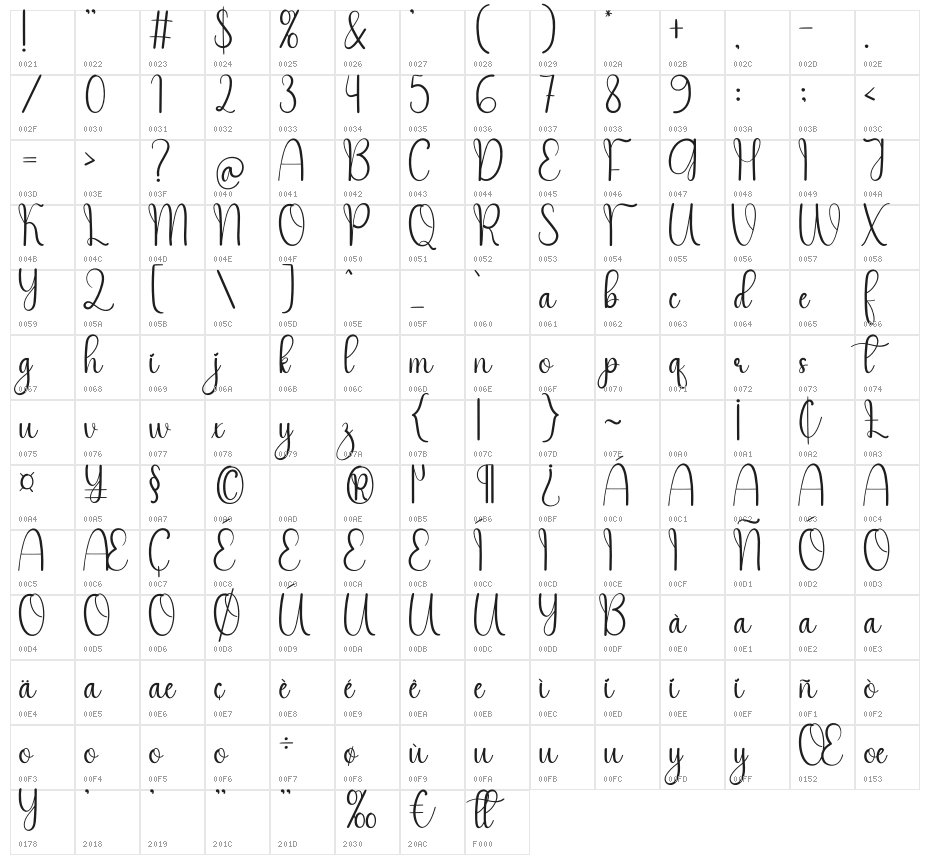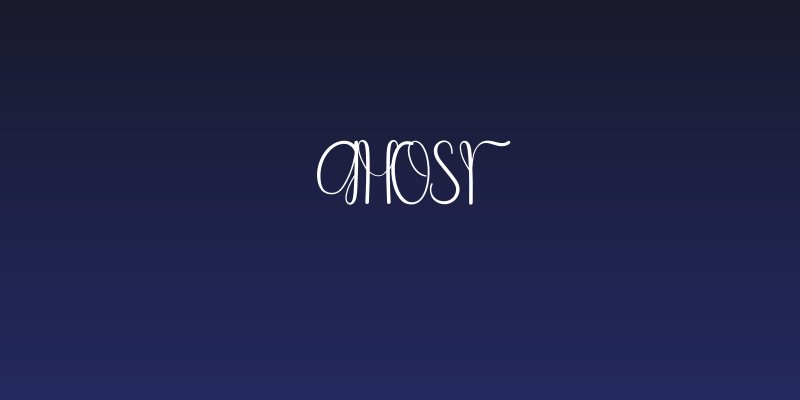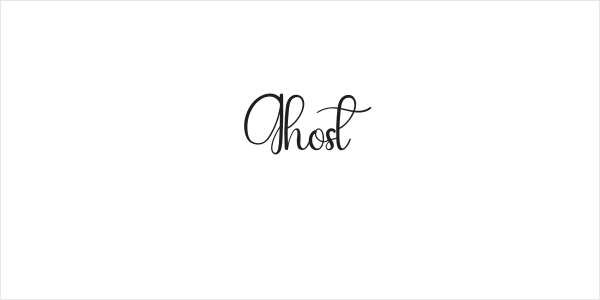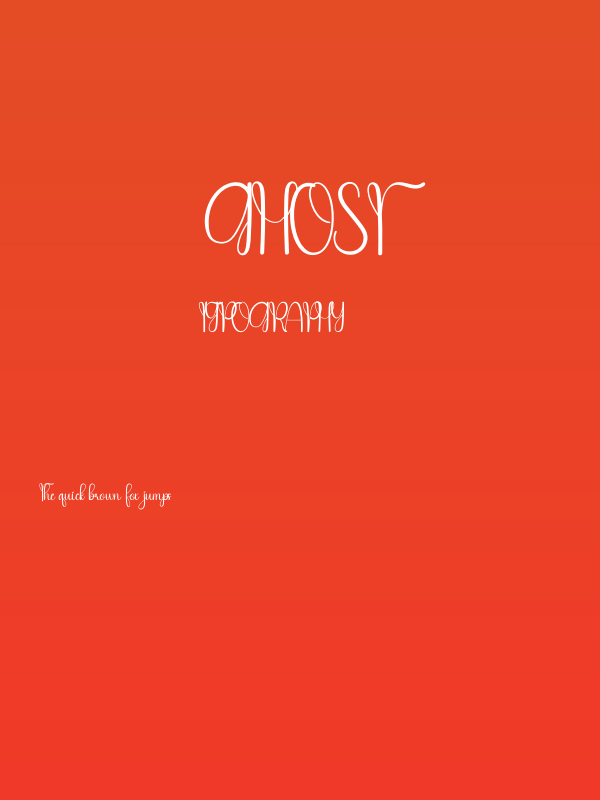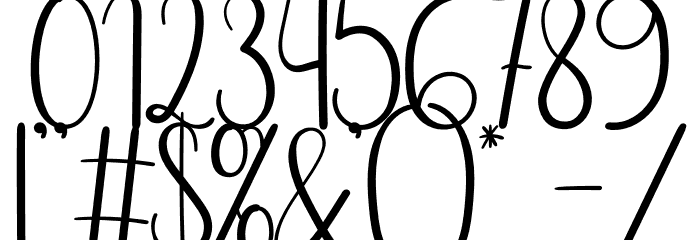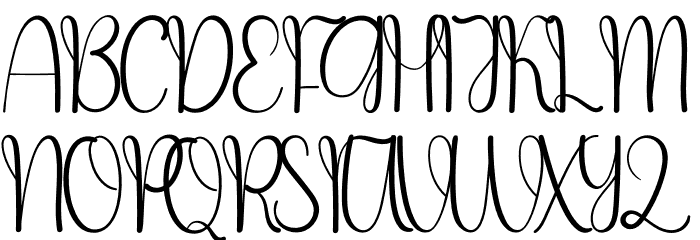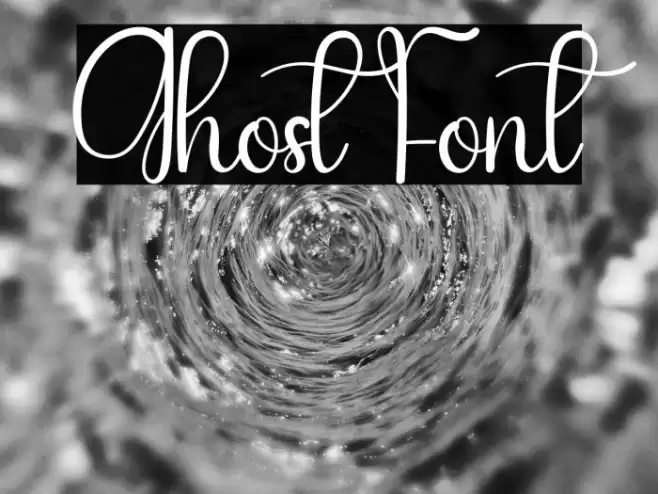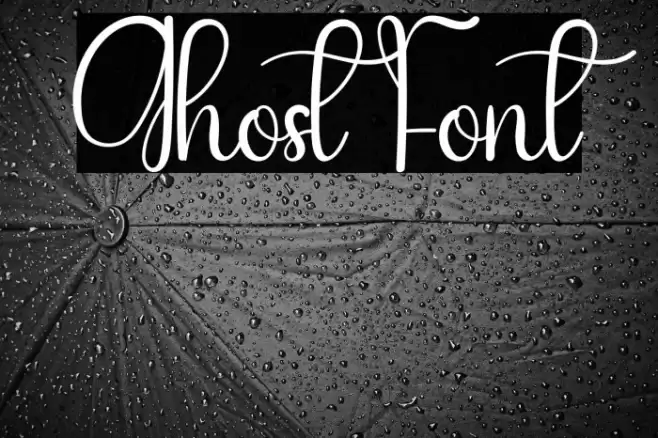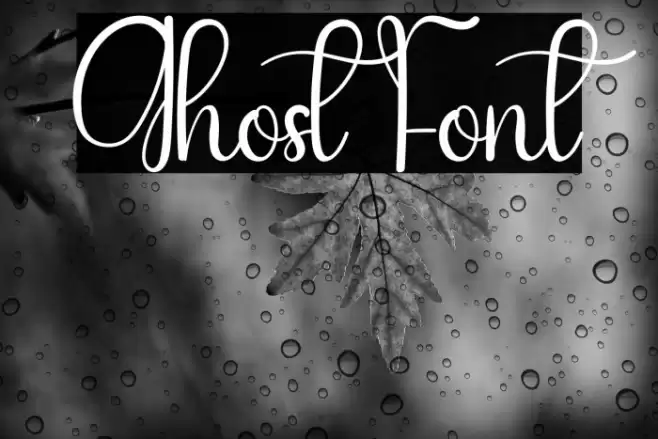
Ghost Font
Ghost Description
This font features an elegant and flowing script style, characterized by its smooth, continuous strokes and graceful curves. The uppercase letters are tall and slender, with a slight slant that adds a sense of movement and fluidity. The lowercase letters are more compact, maintaining the same slanted style, which creates a harmonious balance between the two cases. The numerals are designed with a similar fluidity, ensuring consistency throughout. Special characters are integrated seamlessly, maintaining the overall aesthetic. This font's delicate and artistic appearance makes it ideal for projects that require a touch of sophistication and elegance.
| Proposed Projects | Ideal for wedding invitations, elegant branding, greeting cards, and upscale packaging. |